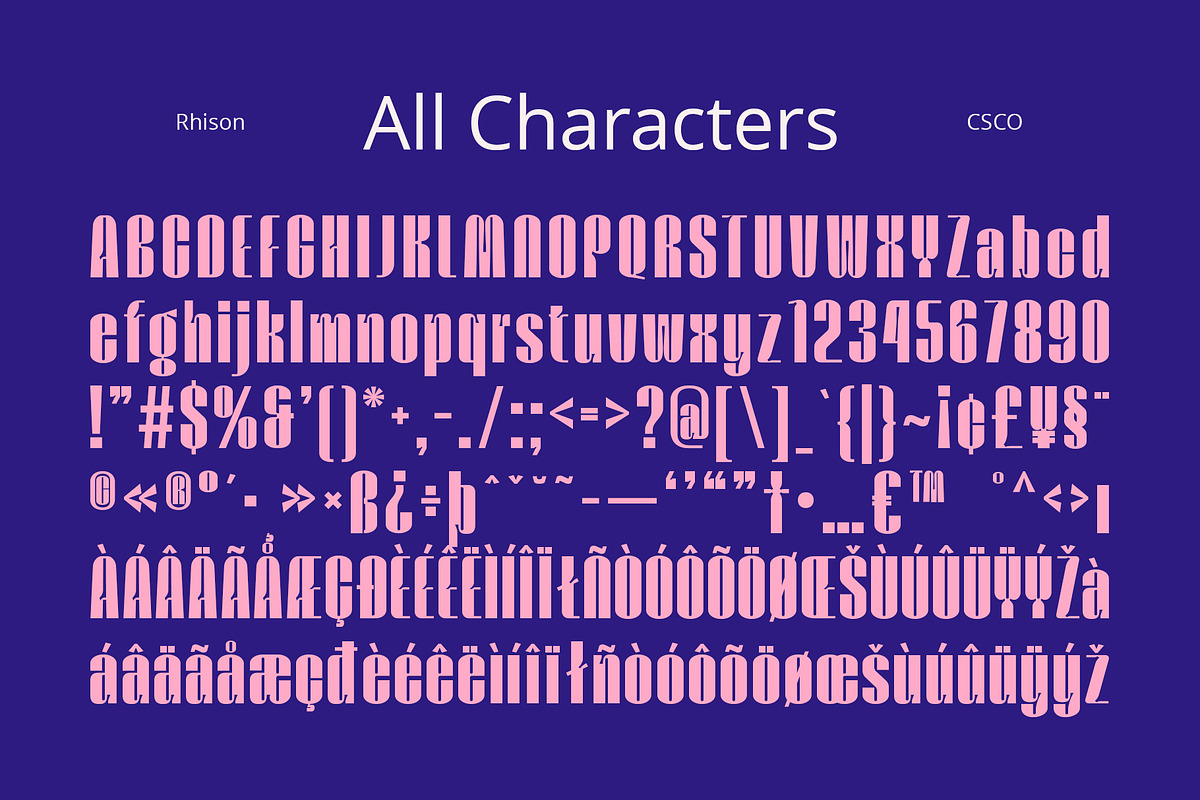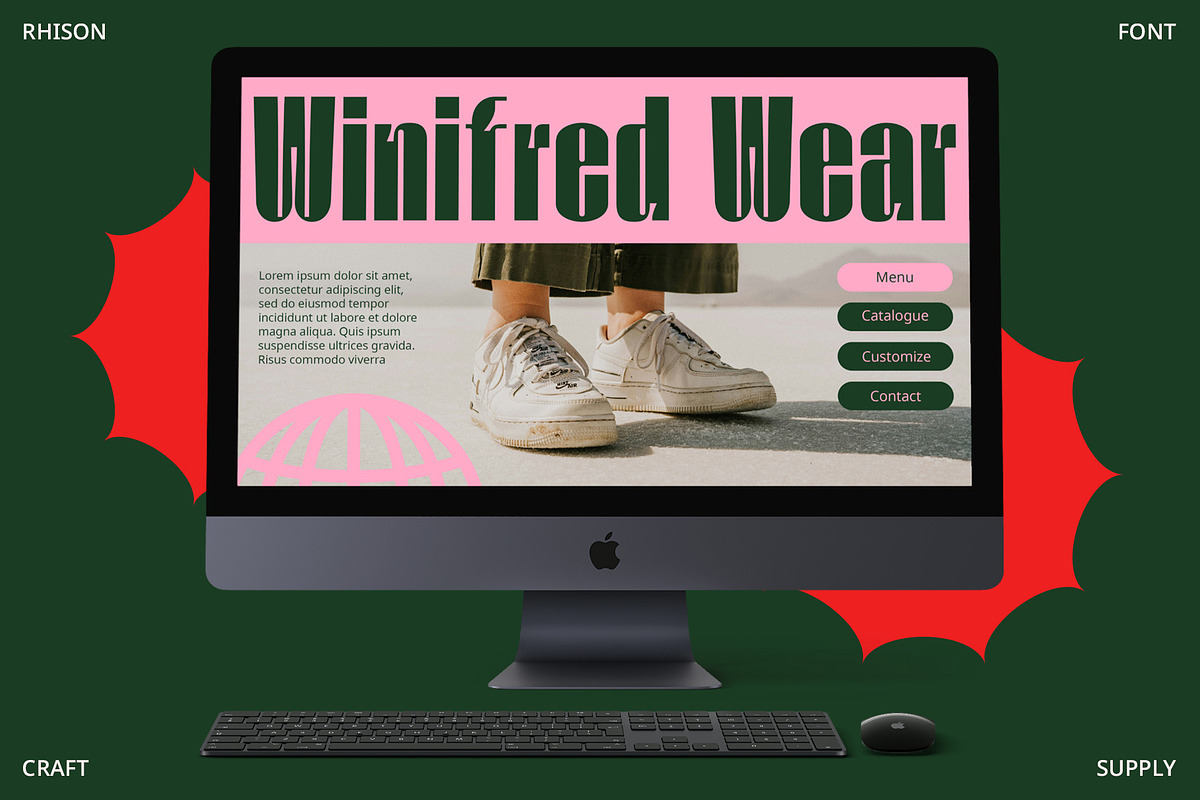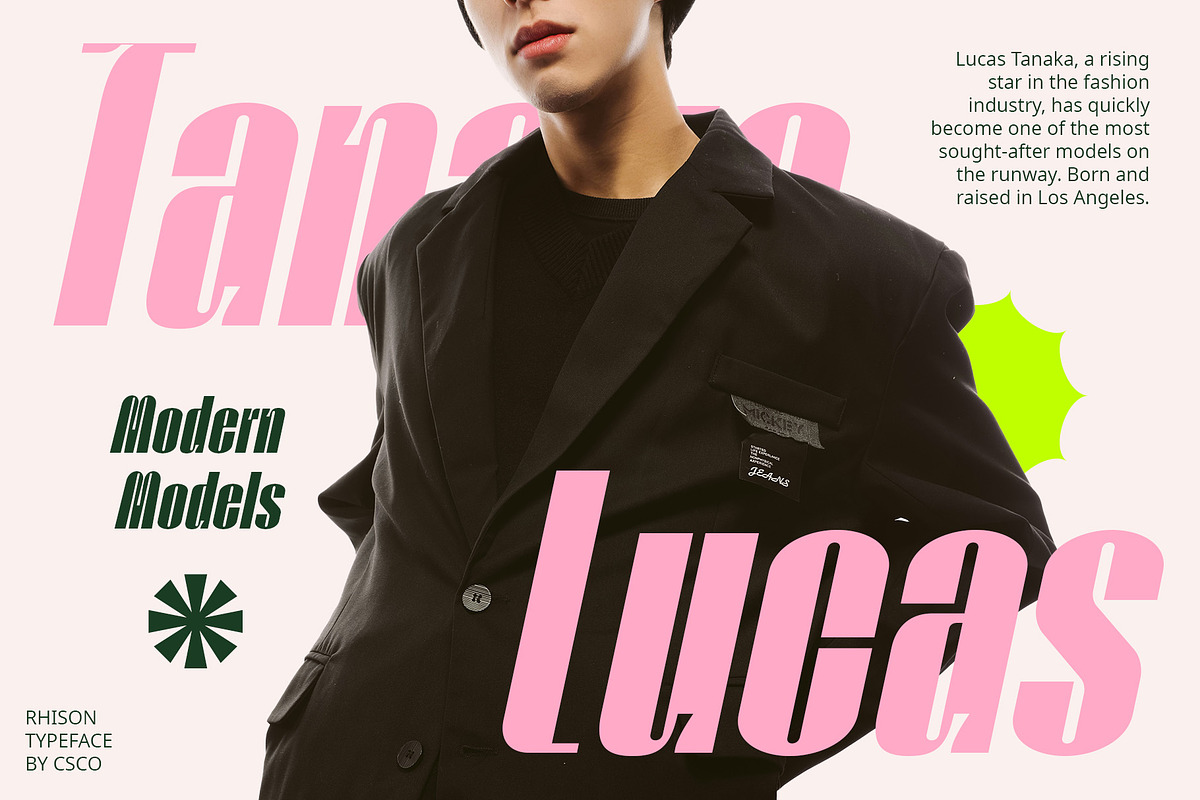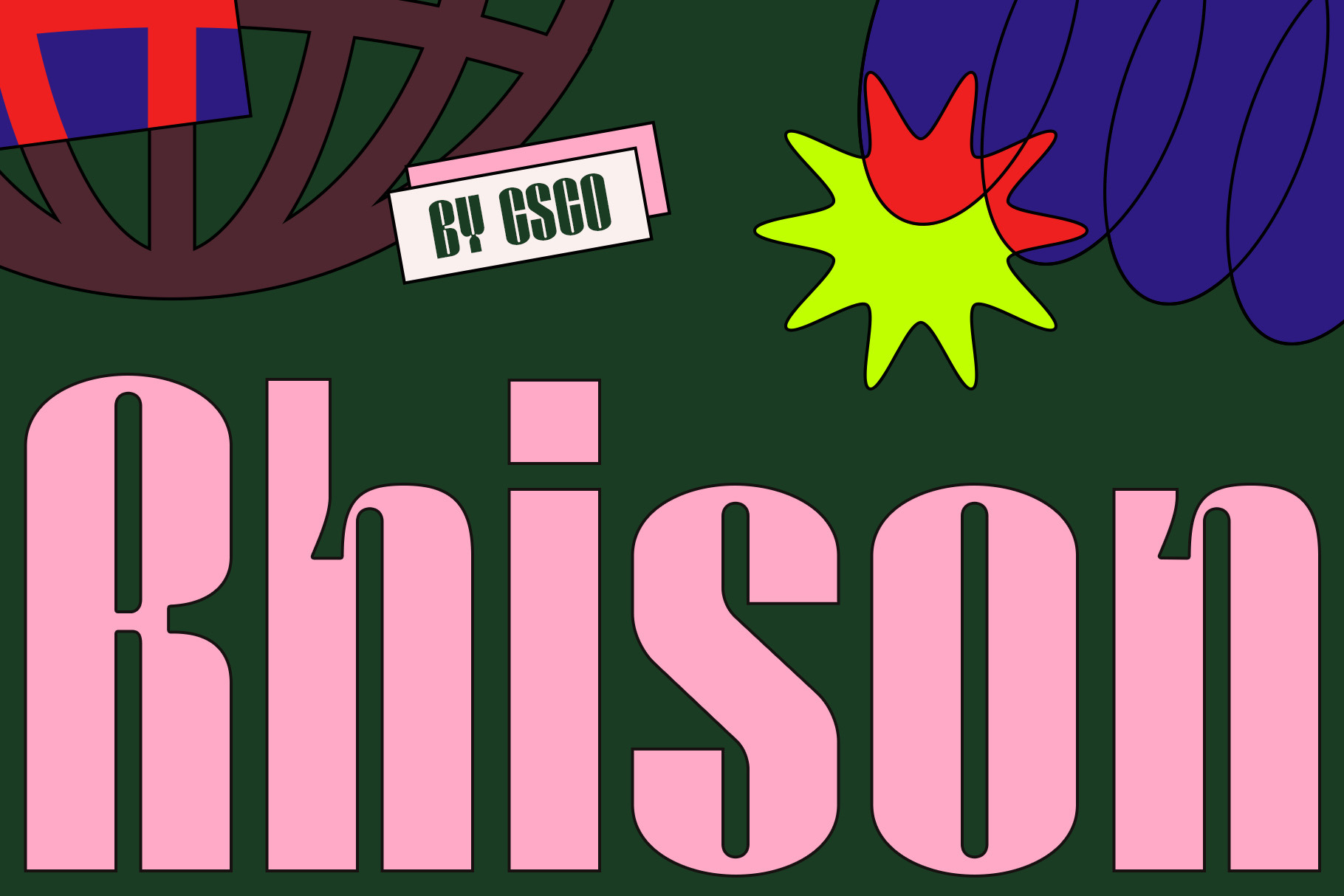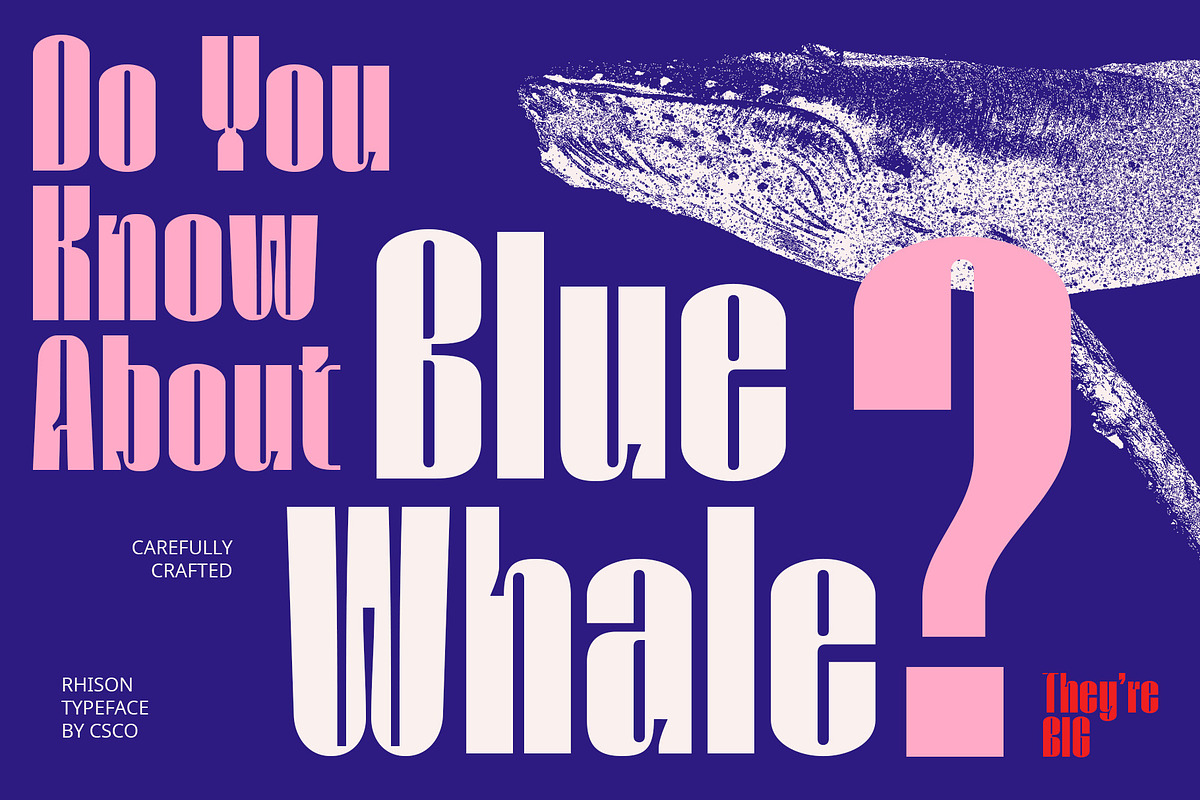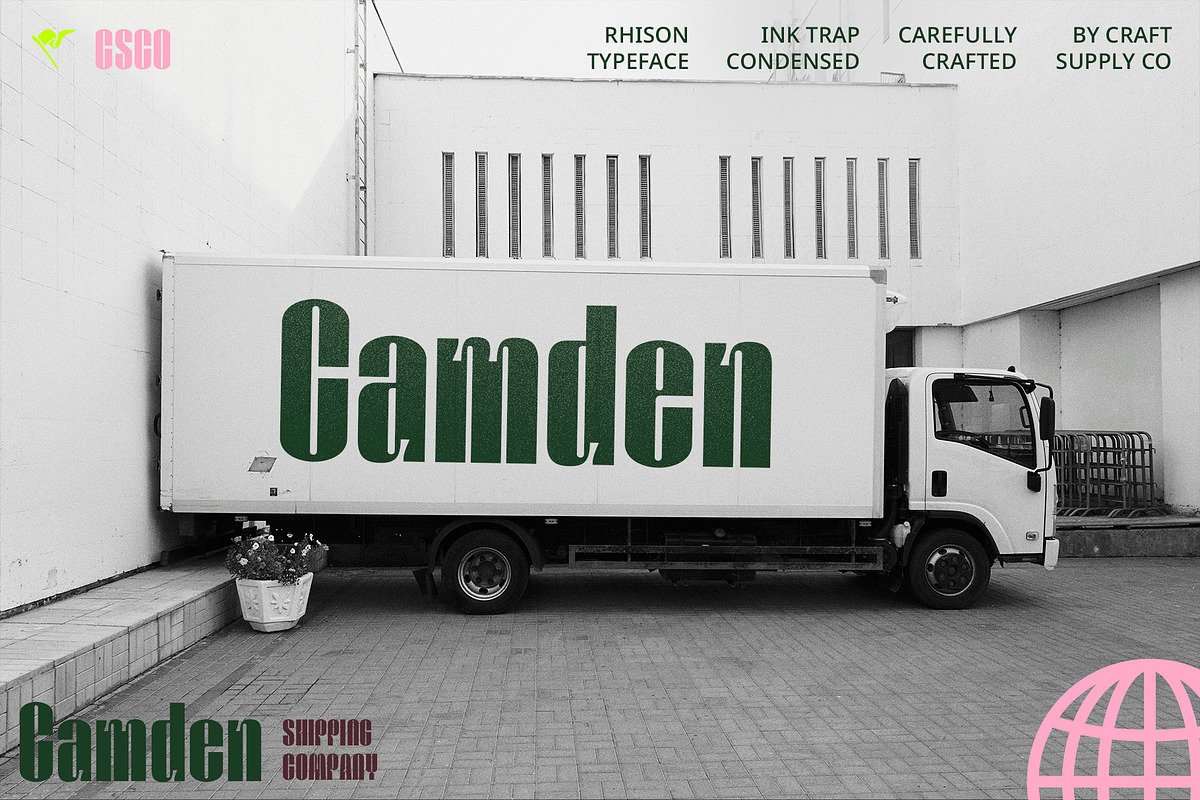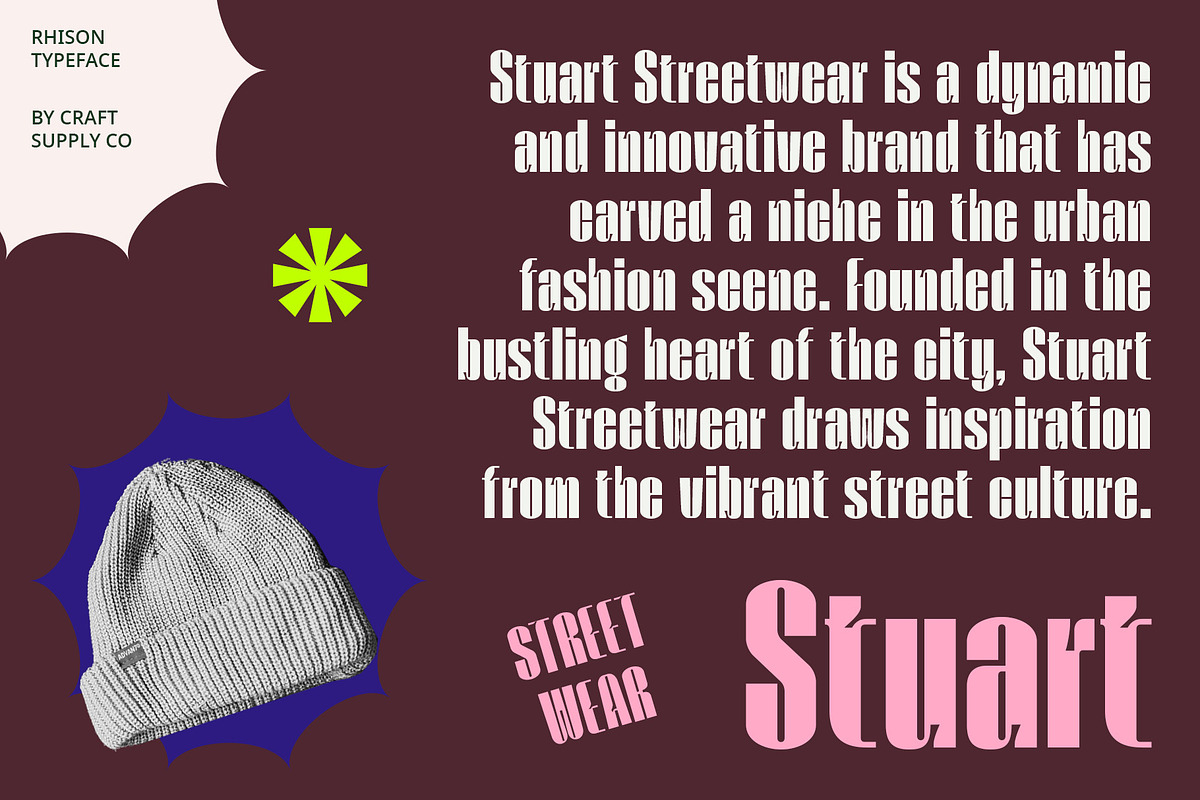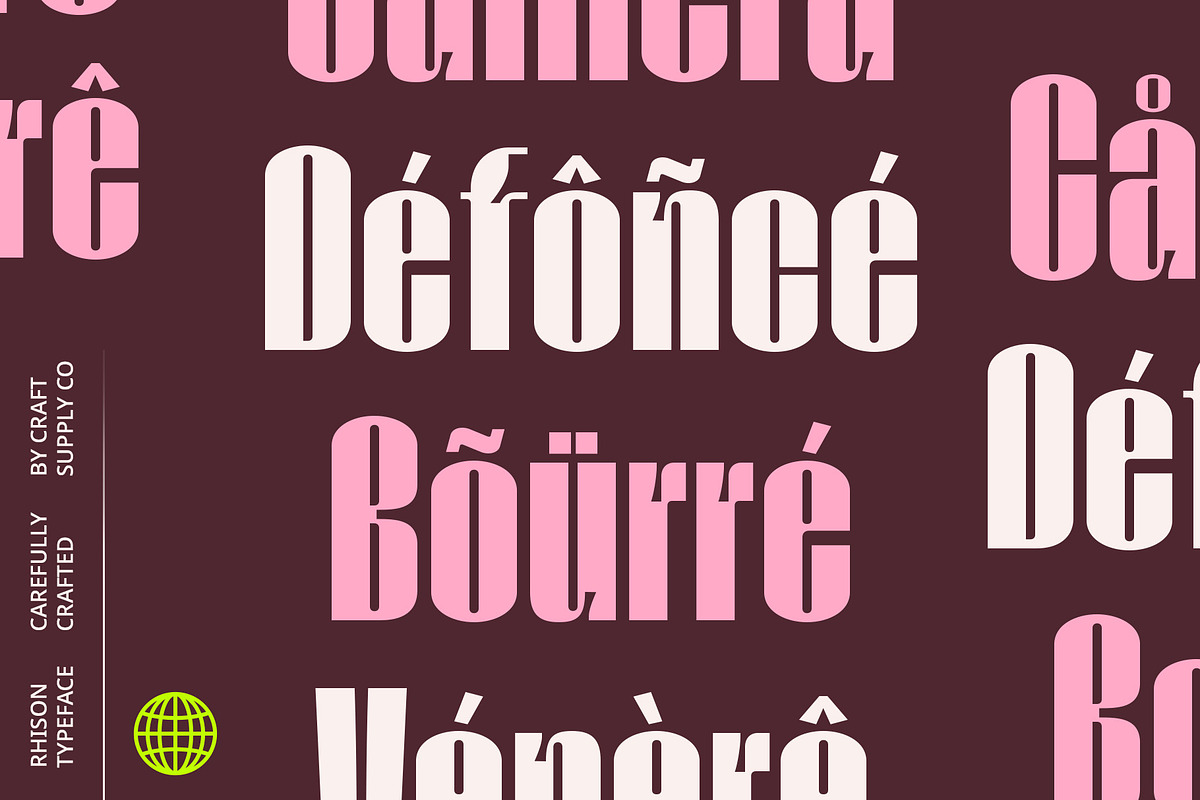
Rhison – Condensed Font
Rhison – Condensed Font: Streamlined Clarity with Inktrap Detail
Condensed Sans Serif with Inktrap
Rhison – Condensed Font is a streamlined sans serif font designed with inktrap details, ensuring clarity and detail even in compact sizes. Its condensed form maximizes space efficiency without sacrificing readability, making it ideal for headlines, banners, and other display uses where space is at a premium.
Compact Design for Efficient Communication
With its condensed design, Rhison Font offers a compact yet clear appearance, perfect for projects requiring efficient communication in limited space. The inktrap details add a touch of sophistication, enhancing the font’s visual appeal and ensuring legibility across various applications.
Versatile Application for Diverse Projects
Whether used in branding, editorial design, or web layouts, Rhison Font excels in versatility. Its clean lines and inktrap features make it suitable for a wide range of design projects, from corporate identities to advertising materials. Discover how Rhison Font can elevate your designs with its balanced combination of clarity and style.